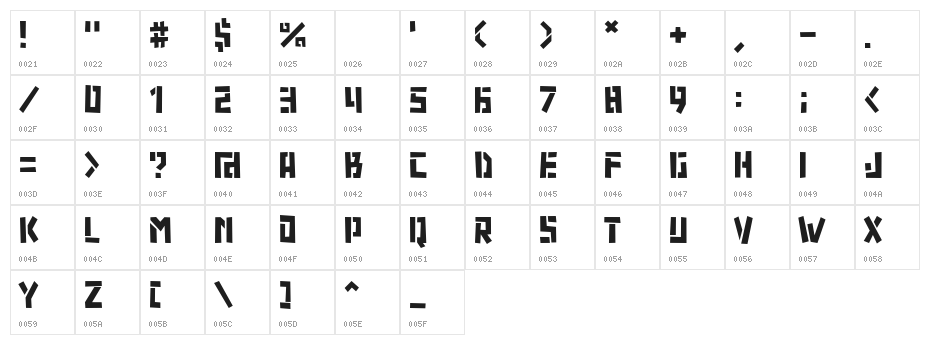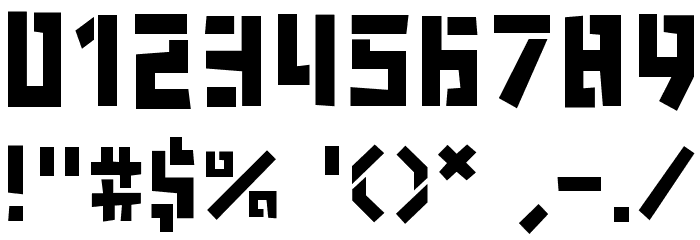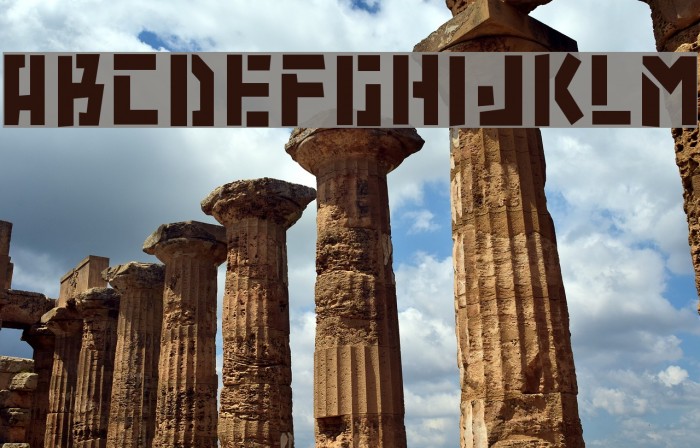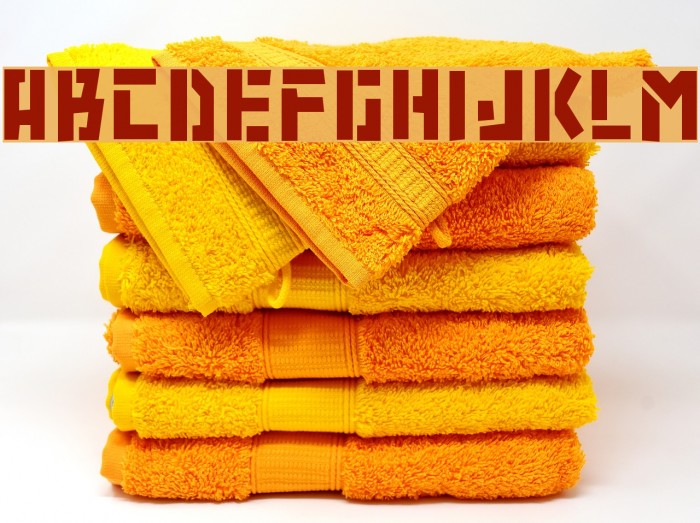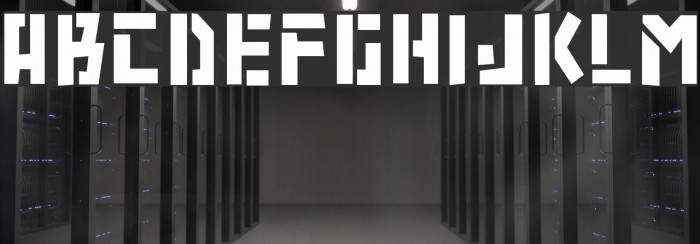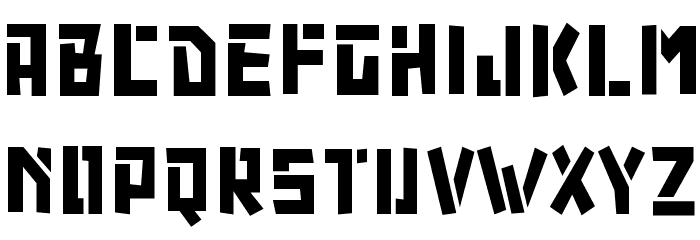
carro Font
carro Description
This font exhibits a bold, geometric style with a strong emphasis on angular shapes and sharp edges. Each character is constructed with a series of straight lines and angles, creating a futuristic and industrial aesthetic. The uppercase and lowercase letters maintain a consistent design, with the lowercase being slightly smaller but equally bold. Numbers and special characters follow the same angular theme, ensuring uniformity across the font. The overall appearance is striking and modern, making it suitable for attention-grabbing designs.